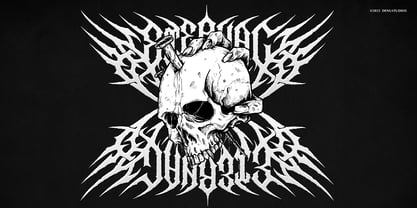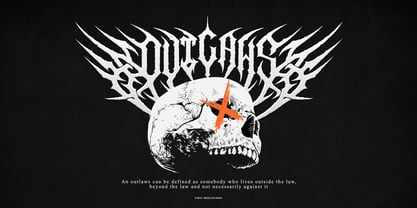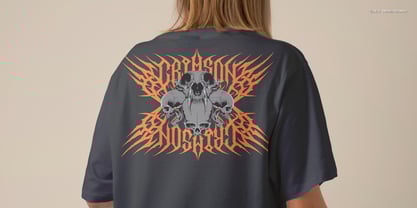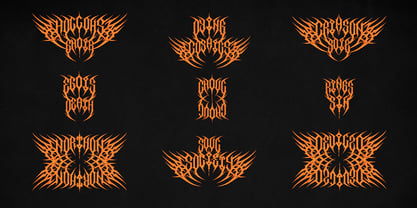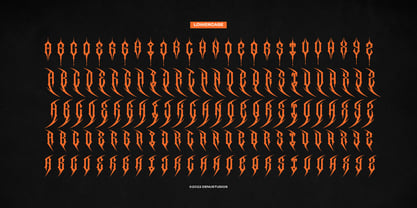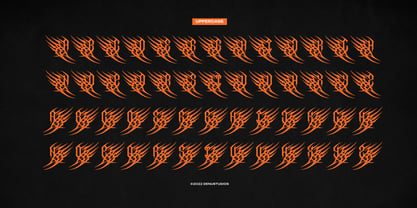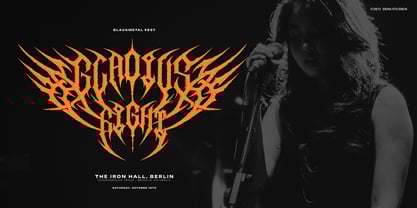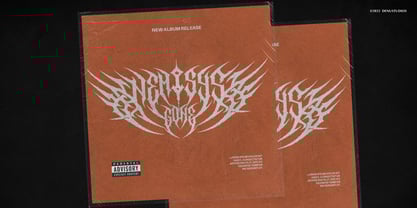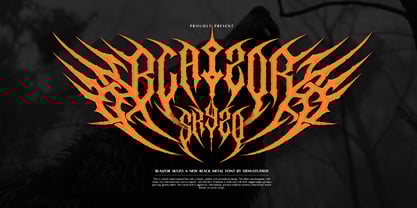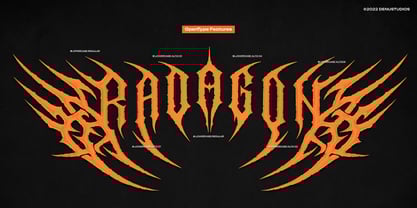
Blaizor Skyzo
Blaizor Skyzo Fuente La familia era diseñada por Dede Nugraha y publicado por Denustudio. Blaizor Skyzo contiene 1 estilos.
Blaizor Skyzo | Black Metal Font, from Denustudios, suitable for any projects such as: logos, branding projects, homeware designs, product packaging, mugs, quotes, posters, shopping bags, t-shirts, book covers, name card, invitation cards, greeting cards, label, photography, watermark, special events, and all your other lovely projects that need Black Metal Font a taste.
• Regular and Italic
• Alternate and Ligature